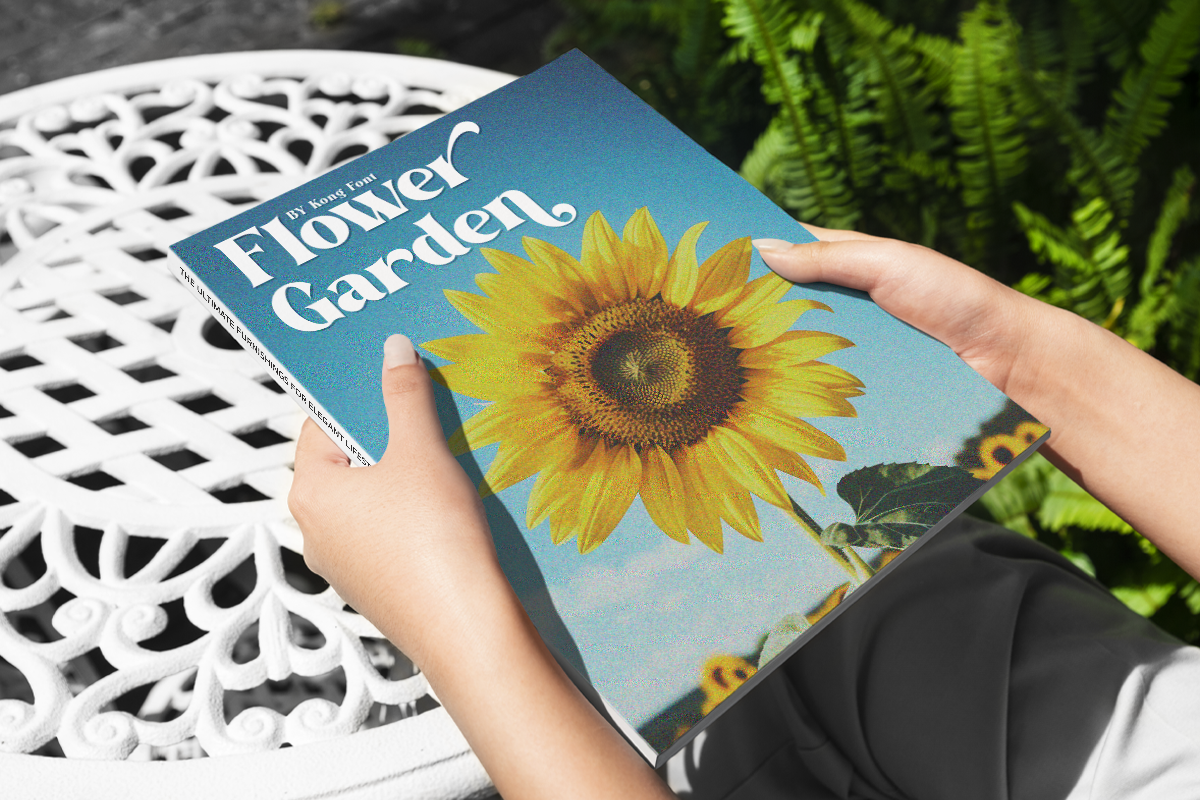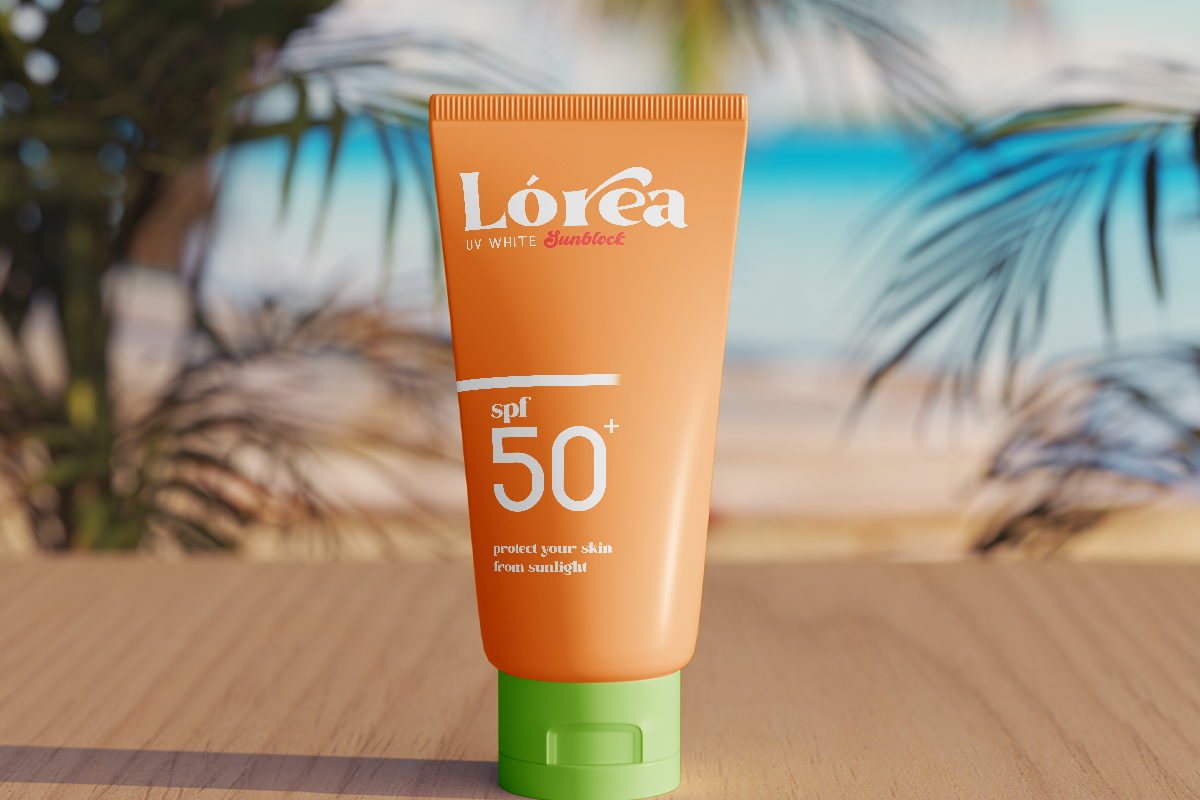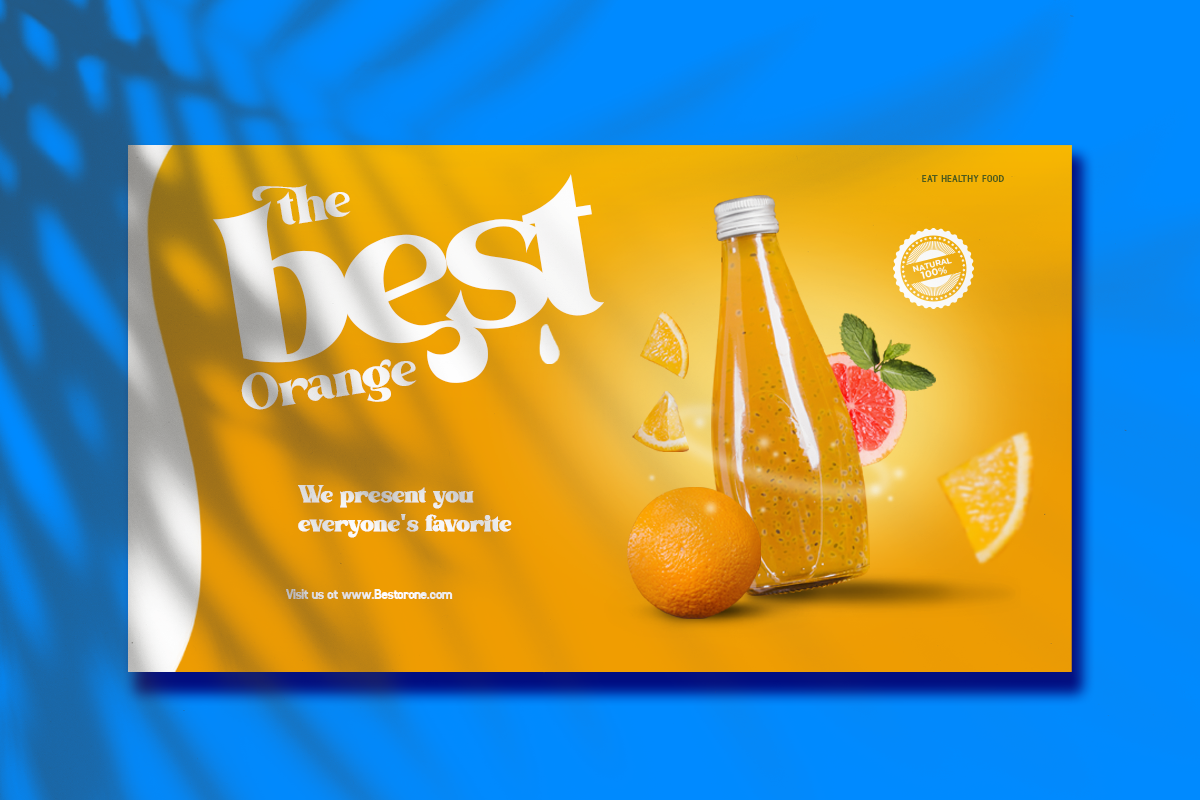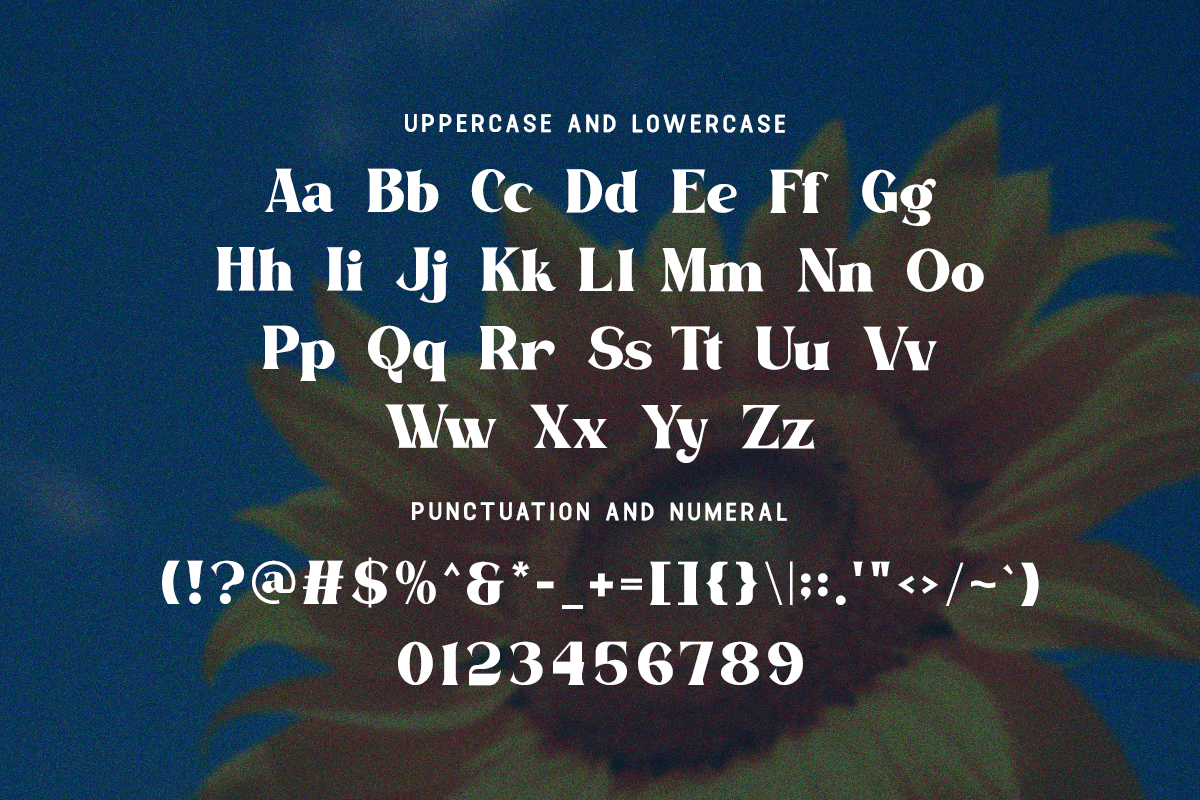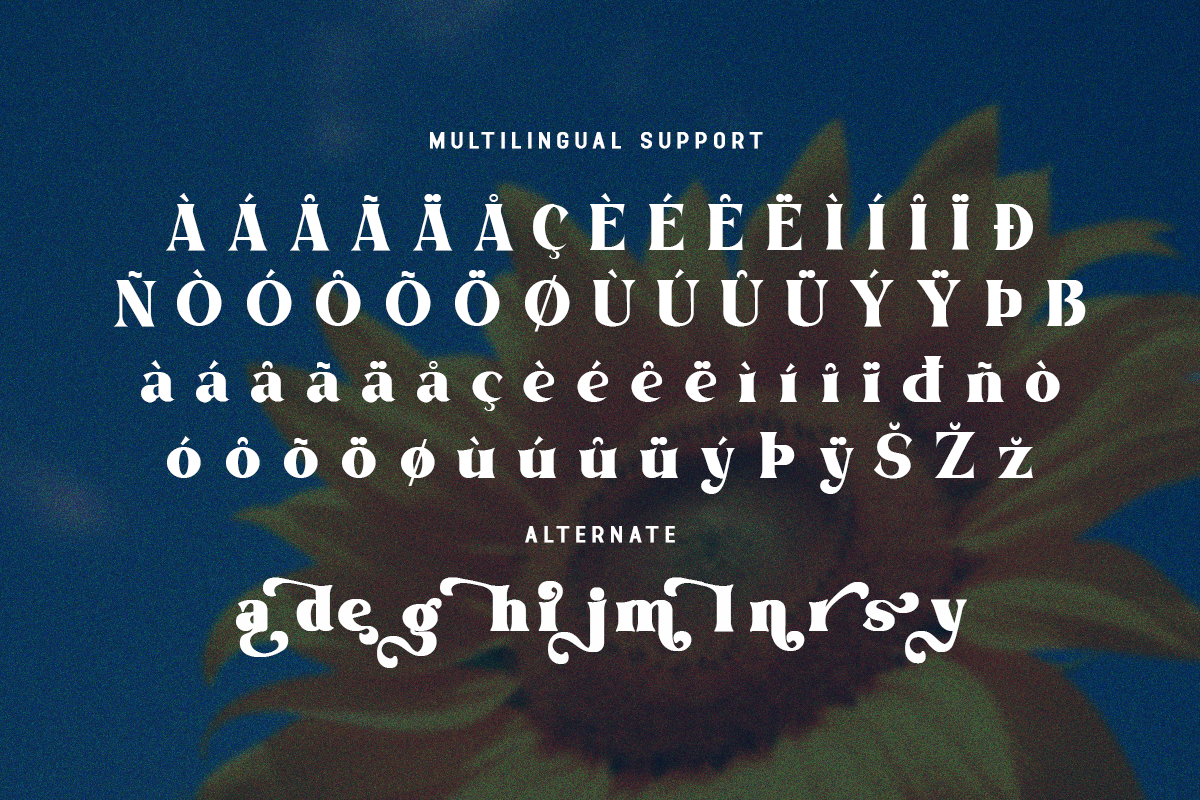
Daylight Modern Classy Vintage Serif Font As the name given to this typeface, Daylight Modern Classy Vintage Serif Font is a serif font with a fun vibe and vintage design. This font is here to help you create beautiful letter designs. Daylight Modern Classy Vintage Serif Font is a vintage style font with a simple, unique, and attractive shape. It is straight and curved thicker at the end of each letter. Each letter can be distinguished easily. Daylight Modern Classy Vintage Serif Font is a legible font that can be seen and understood from a distance. However, this font is not suitable for product branding, writing long sentences or blog content, as well as reading books and magazines. It is better for short sentences. Daylight Modern Classy Vintage Serif Font is the best font to use for event needs. This font can be used on posters, banners, and tickets. Besides that, this font can be used as merchandise such as key chains, stickers, and more. This font can be used as a digital font, such as in product promotion advertisements, music program advertisements, and video intros and outros. Daylight Modern Classy Vintage Serif Font is made to give a fun, vintage, and simple impression. This impression can change according to the theme and ornaments that follow. It can be lively and colorful when combined with striking ornaments and colors. It still looks great and is very attractive. Our serif fonts collection is compatible for use as; Figma fonts, Canva fonts, Freepik Fonts, and Adobe Fonts. They also work as Windows Fonts and Apple Fonts. For your social media needs, you can use and install fonts in our collection of serif fonts to use as Instagram Fonts, Facebook Fonts, and Twitter Fonts.